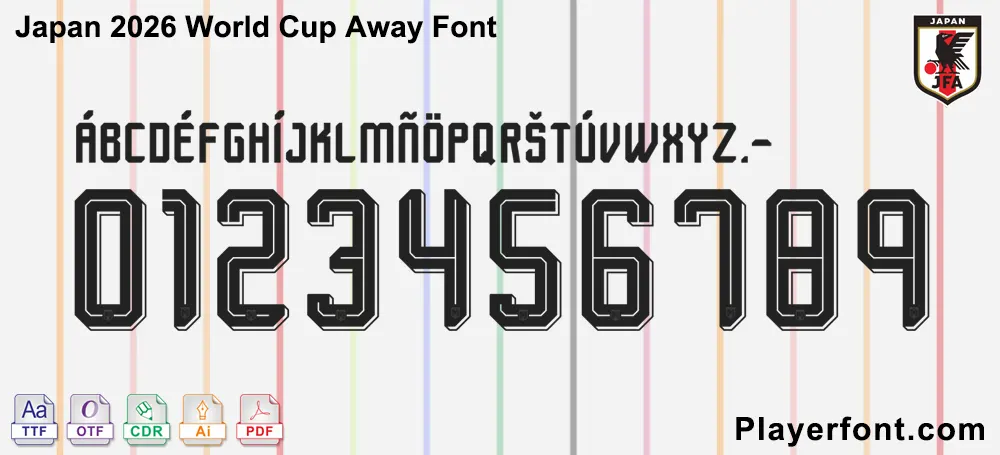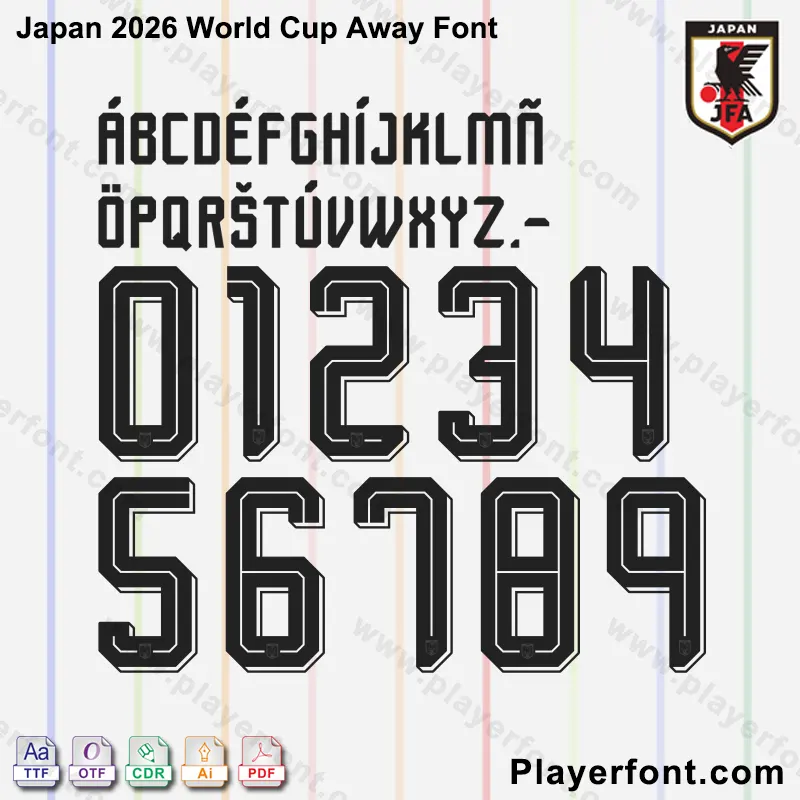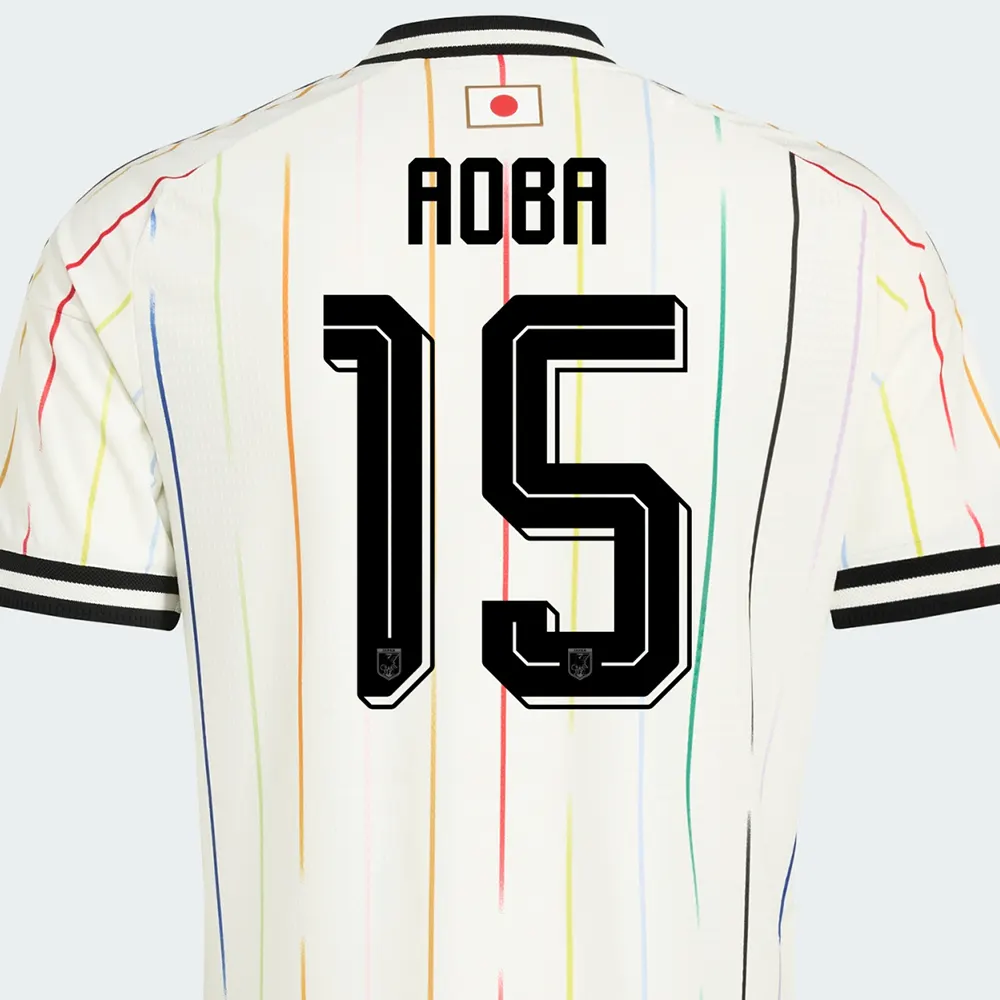
Elevate your sports design projects with the Japan 2026 World Cup Away Font. This font captures the unique aesthetic of the Japanese National Team’s away kit, known for its vibrant multicolored vertical stripes and modern typography.
Authentic Details: Features the distinct “double-line” 3D effect on the numbers and the sharp, condensed lettering for player names.
Complete Character Set: Includes all uppercase letters, numbers 0-9, and special accent characters (Á, É, Ó, etc.) for international player names.